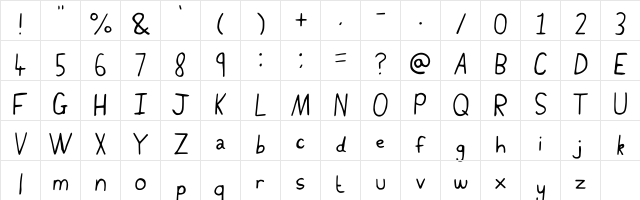
Cachet Regular
Design Context for Cachet Typeface
Cachet is a composed and adaptable typeface that performs quietly and consistently across a wide range of design contexts.